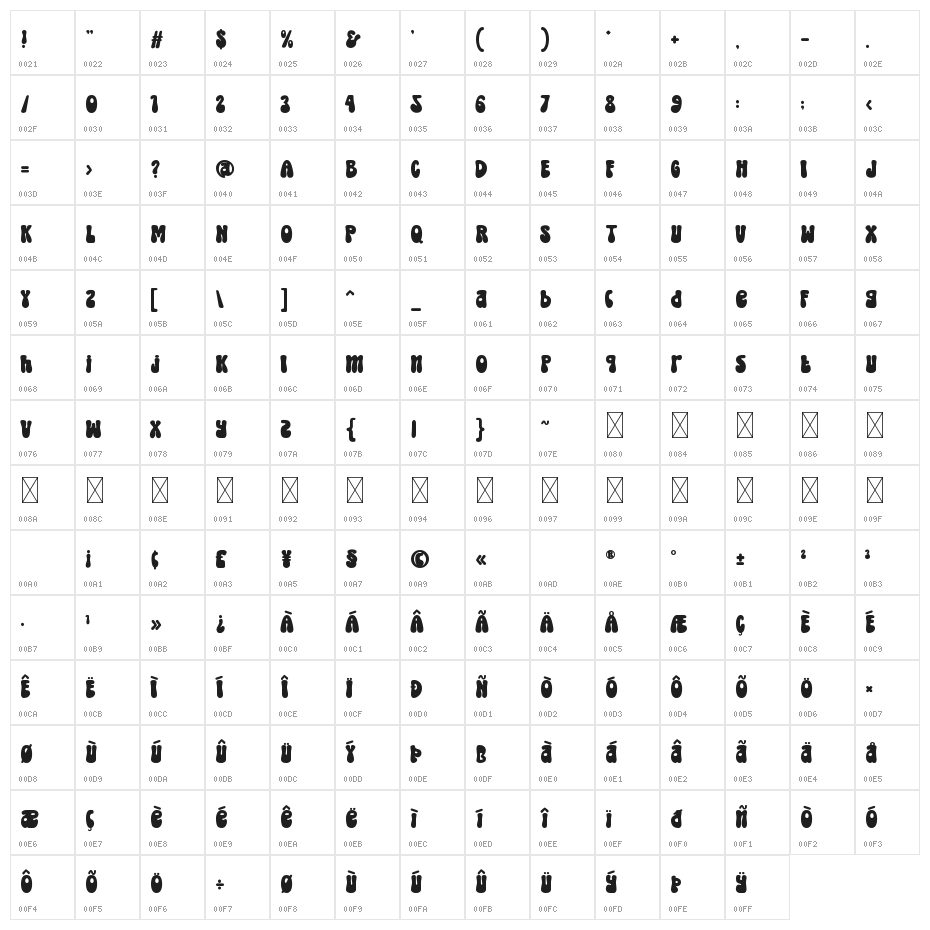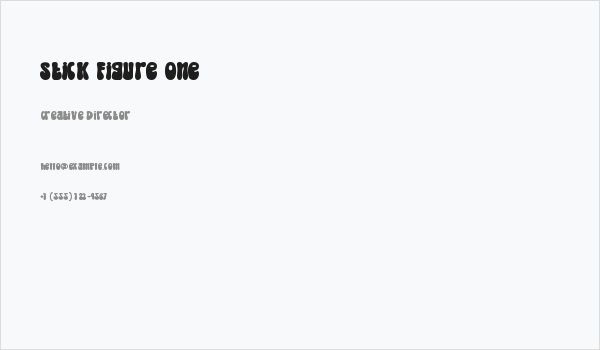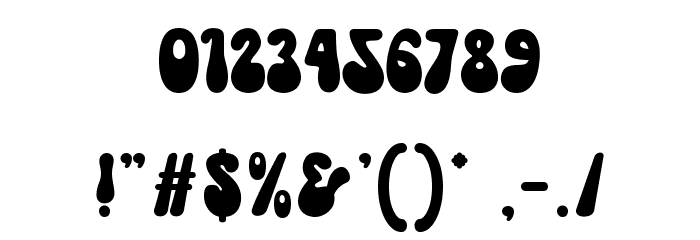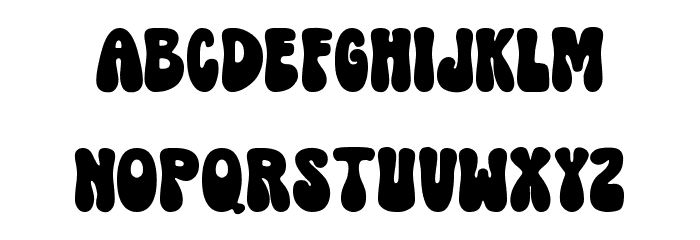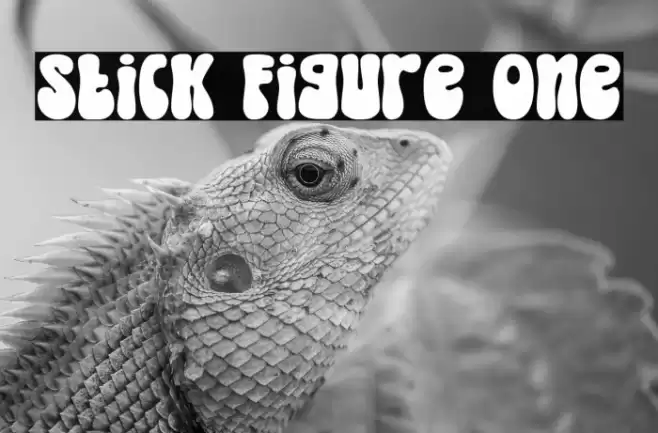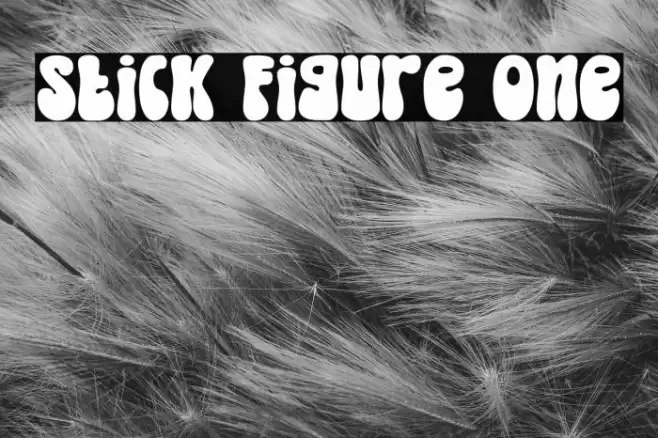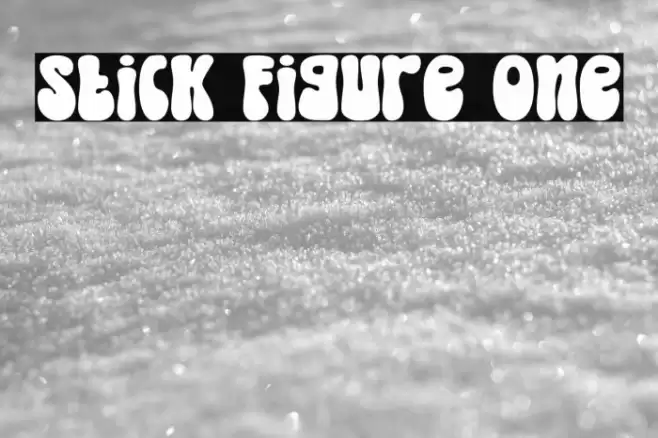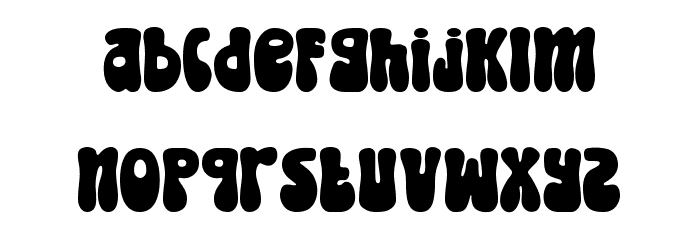
Stick Figure One Font
This font features a bold, playful design with thick, rounded strokes that give it a bubbly and friendly appearance. The characters are uniformly wide, creating a cohesive look across the alphabet. The uppercase and lowercase letters maintain a consistent style, with slight variations to distinguish them. The numbers and special characters follow the same bold and rounded aesthetic, ensuring uniformity throughout. This font's unique style makes it stand out, ideal for projects that require a fun and engaging typeface.
| Proposed Projects | Ideal for children's books, playful branding, party invitations, and posters. |